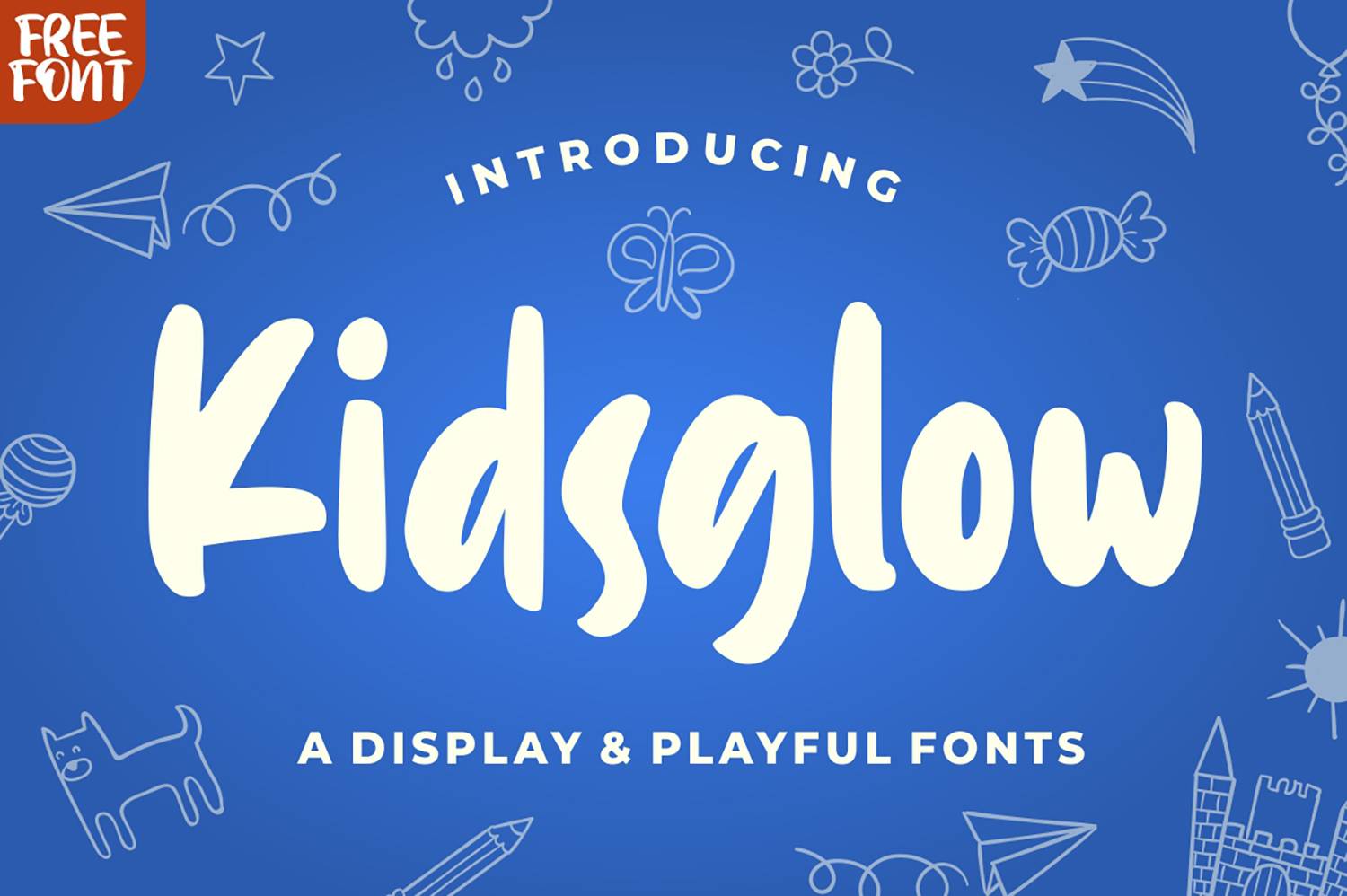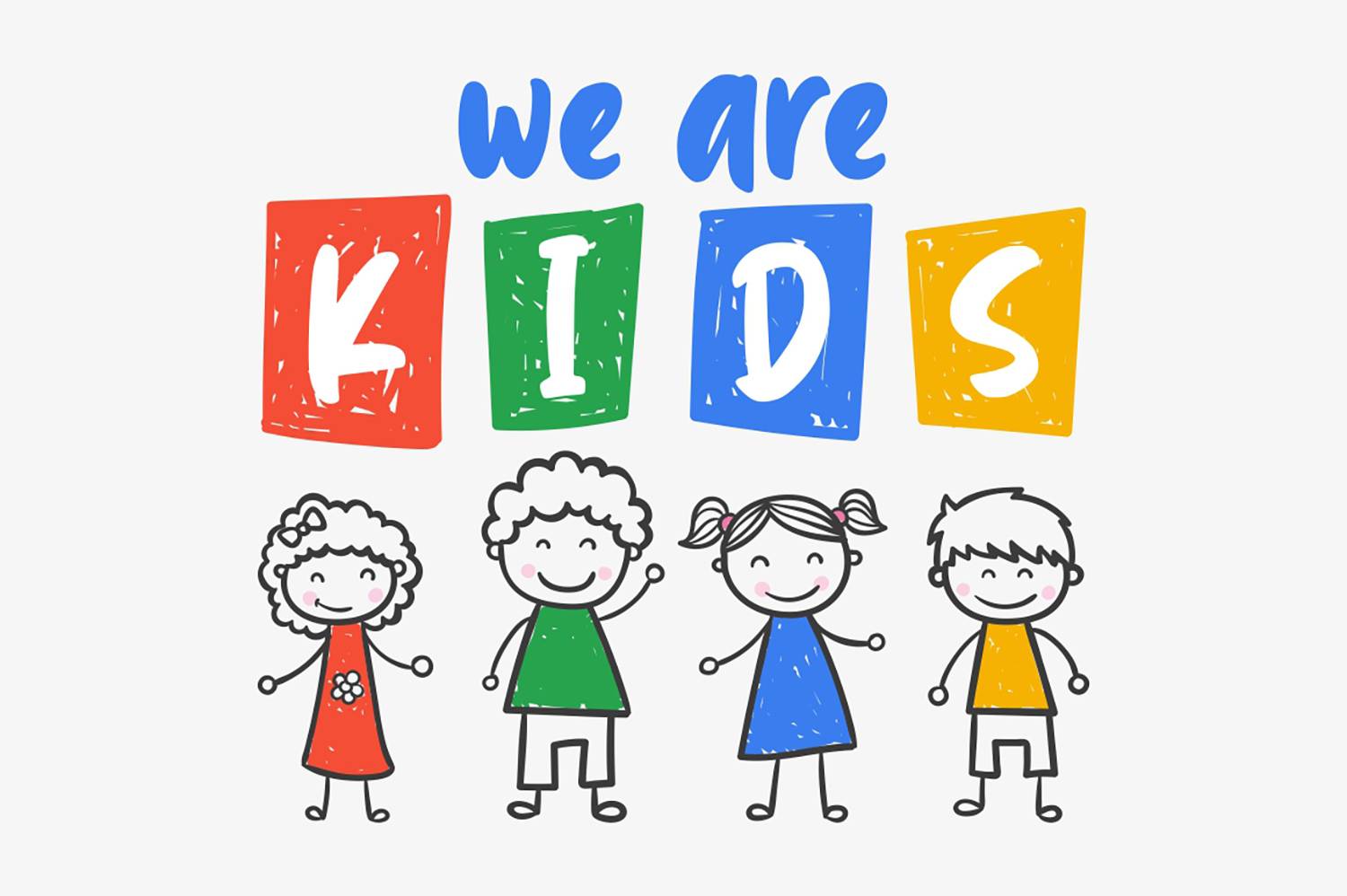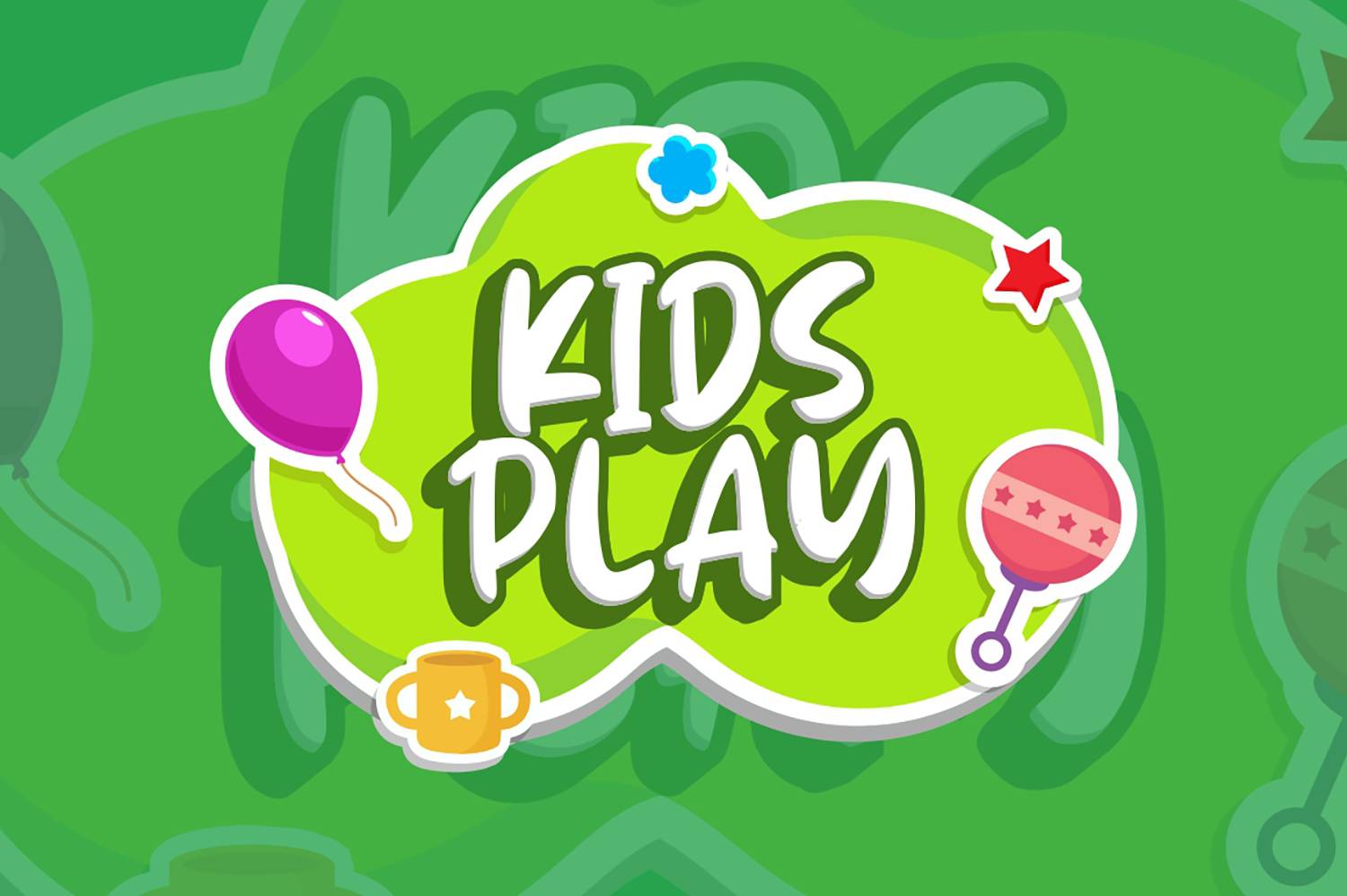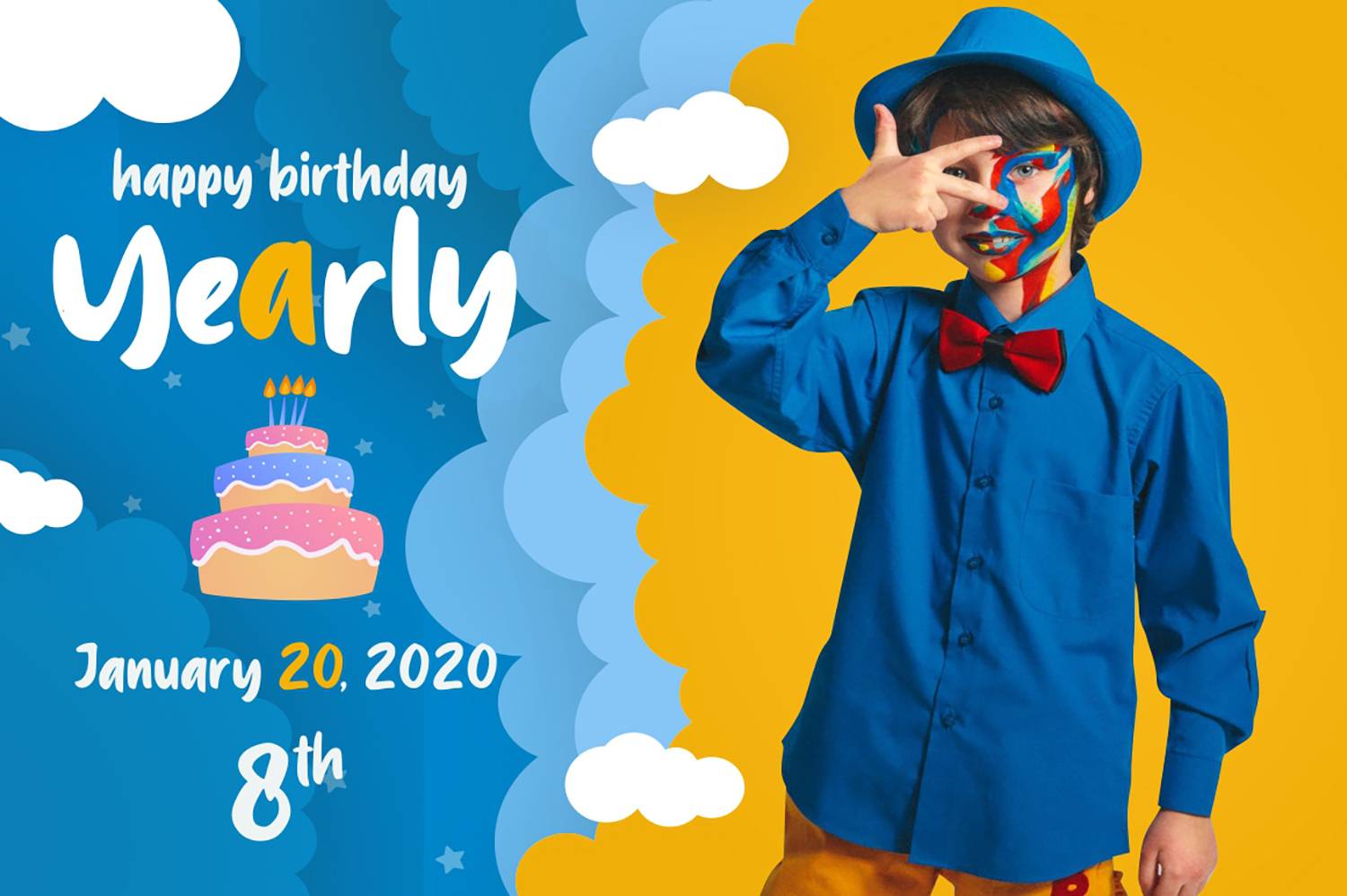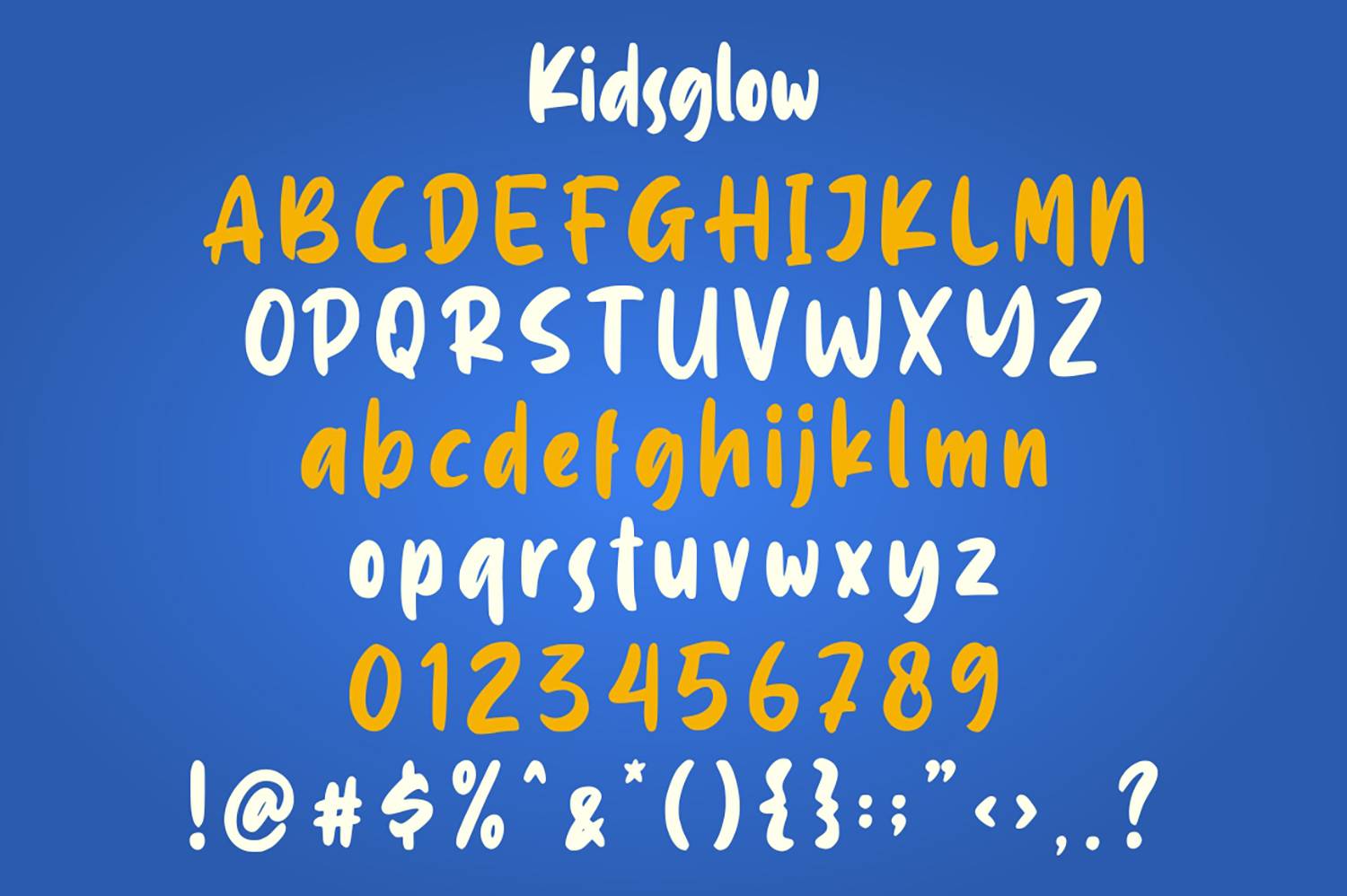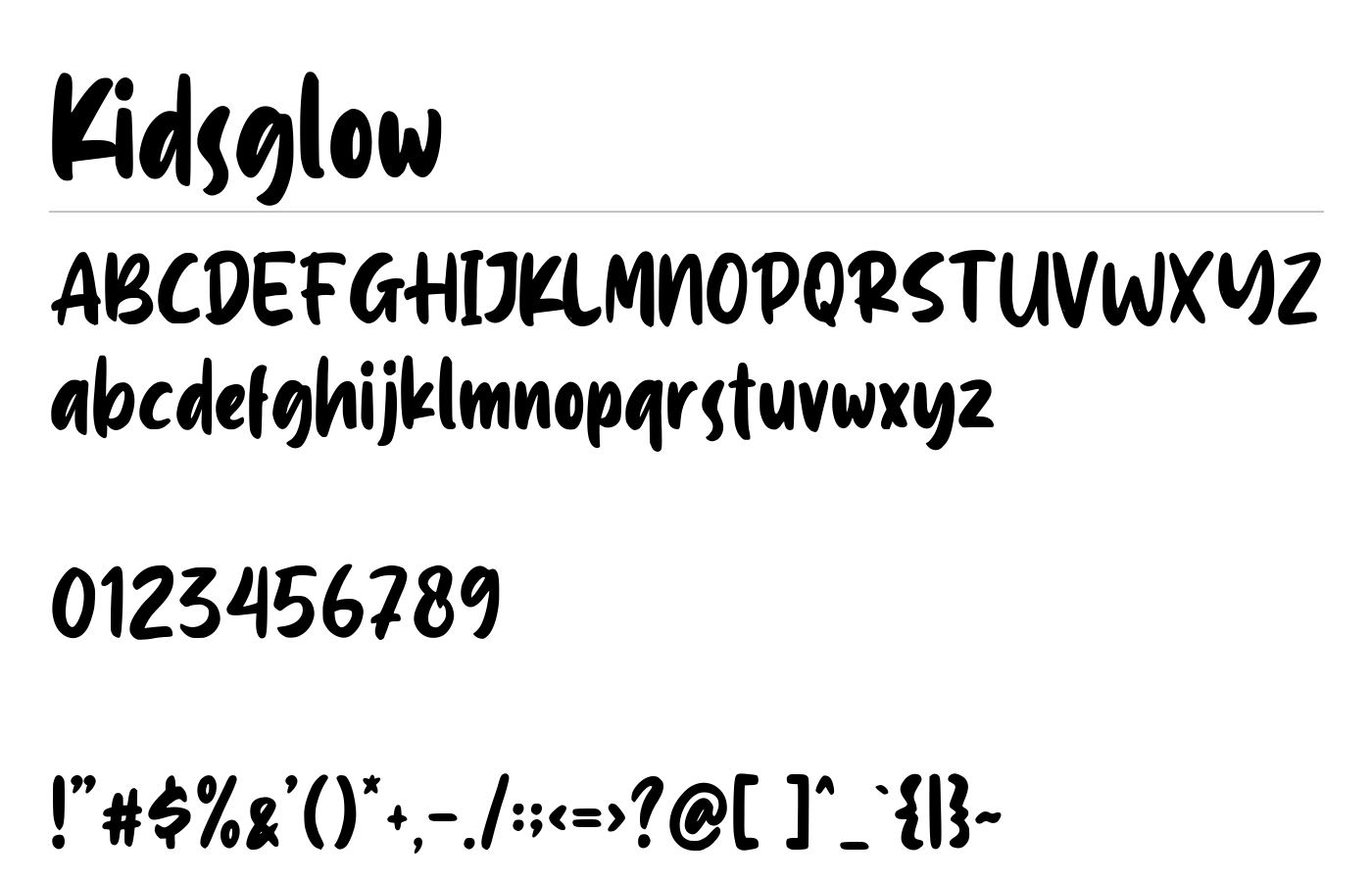
Kidsglow is a playful and bold handwritten sans serif font with a lively, casual style. Its rounded, thick strokes and slightly irregular letterforms give it a friendly, approachable feel, making it perfect for children's content, informal branding, and creative projects that want to convey warmth and fun. This font works well in logos, posters, and headlines where a cheerful and personal touch is desired.
Kidsglow Font